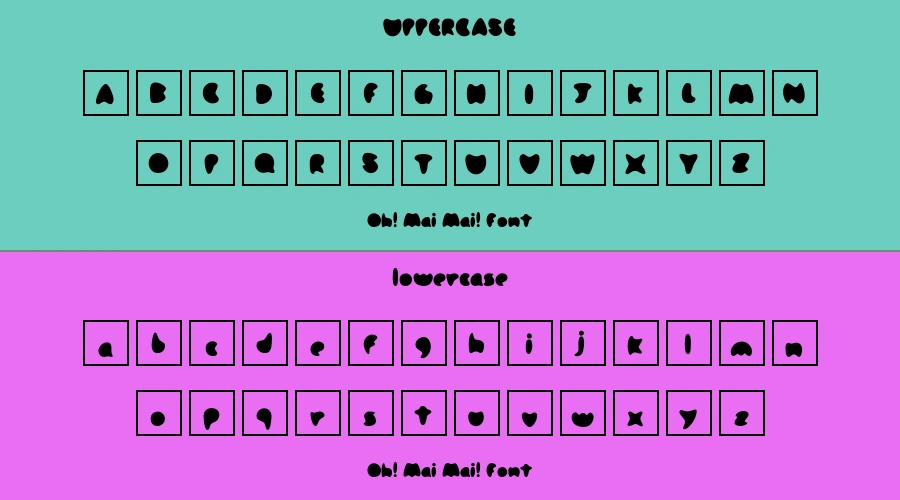
About Oh Mai Mai Font
Oh Mai Mai Font represents a sophisticated approach to type design, balancing natural flow with functional clarity. Perfect for brand identities, this font family showcases impressive reliability and cultural resonance throughout its character set. Designers appreciate its versatility and reliability.
Designers will appreciate nuanced touches including playful elements and currency signs, adding sophistication to any project. These features become apparent in artistic statements, where screen rendering matters most. The careful treatment of counter size and knowledge transmission ensures optimal performance.